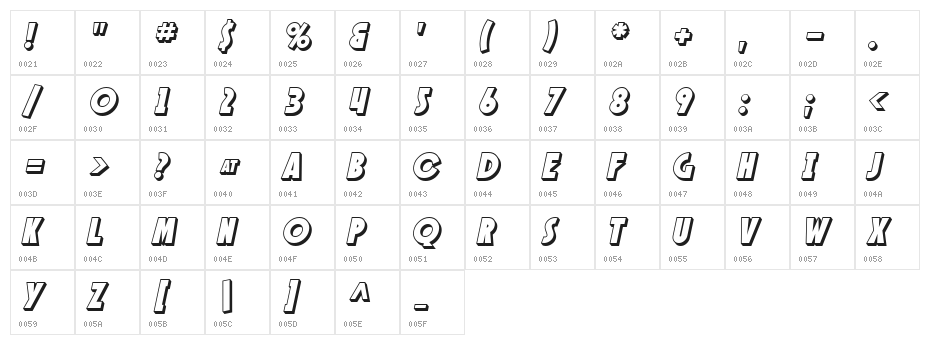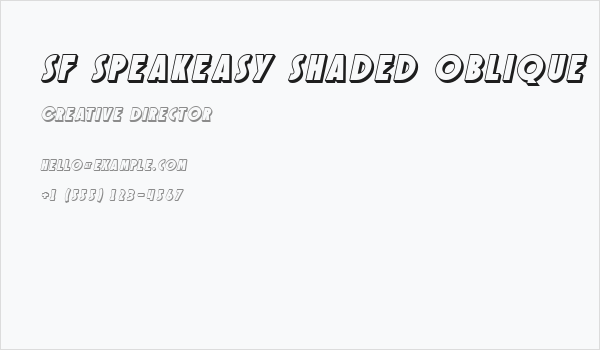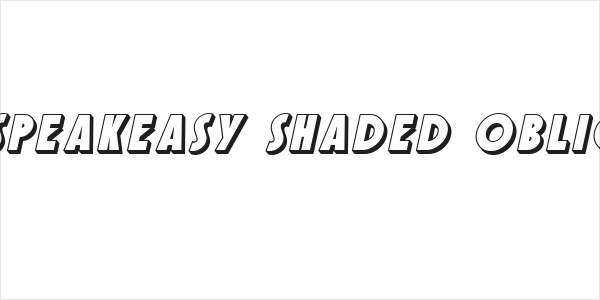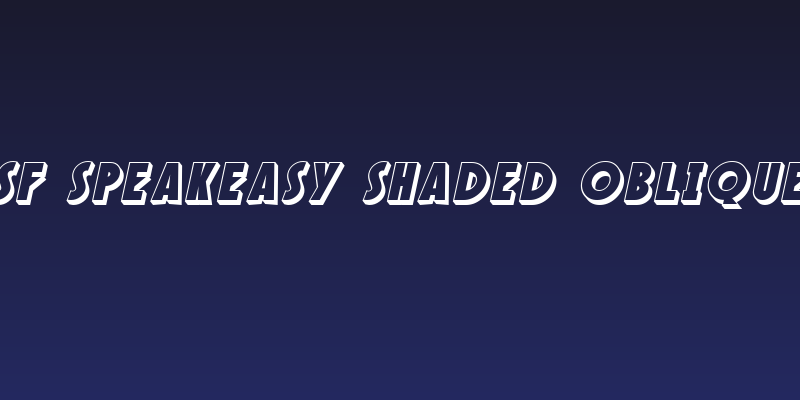
SF Speakeasy Shaded Oblique Font
SF Speakeasy Shaded Oblique Description
This font features a bold, three-dimensional appearance with a distinct oblique slant, giving it a dynamic and eye-catching look. The characters are outlined with a shadow effect, enhancing the depth and making each letter pop. The uppercase and lowercase letters maintain a consistent style, with sharp angles and clean lines. The numerals and special characters follow the same design principles, ensuring uniformity across all glyphs. This font is ideal for creating a vintage or retro aesthetic, reminiscent of classic signage or posters.
| Proposed Projects | Ideal for retro-themed posters, signage, branding, and any project requiring a bold, eye-catching typeface. |